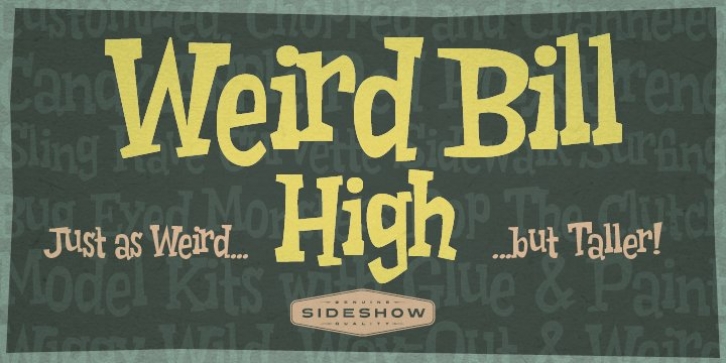
Weird Bill High downloadDesigner: David (Squid) Cohen,
Publisher: Sideshow
Yet another member of the Weird Bill dysfunctional font system!
Weird Bill High is the chunky big brother, carrying on the tradition of irregularity and squidginess.
Get weird! Comes complete with a way out set of stylistic OpenType alternates you're sure to dig!